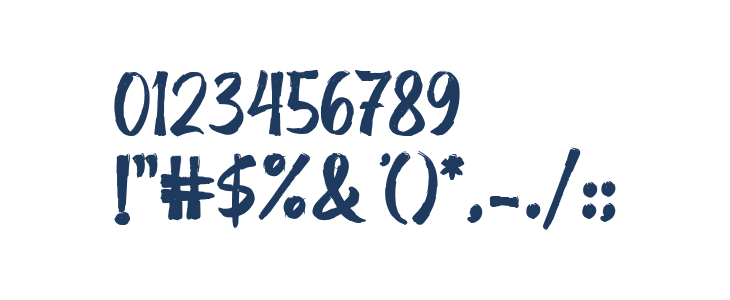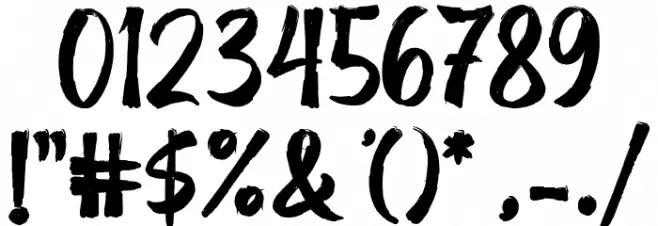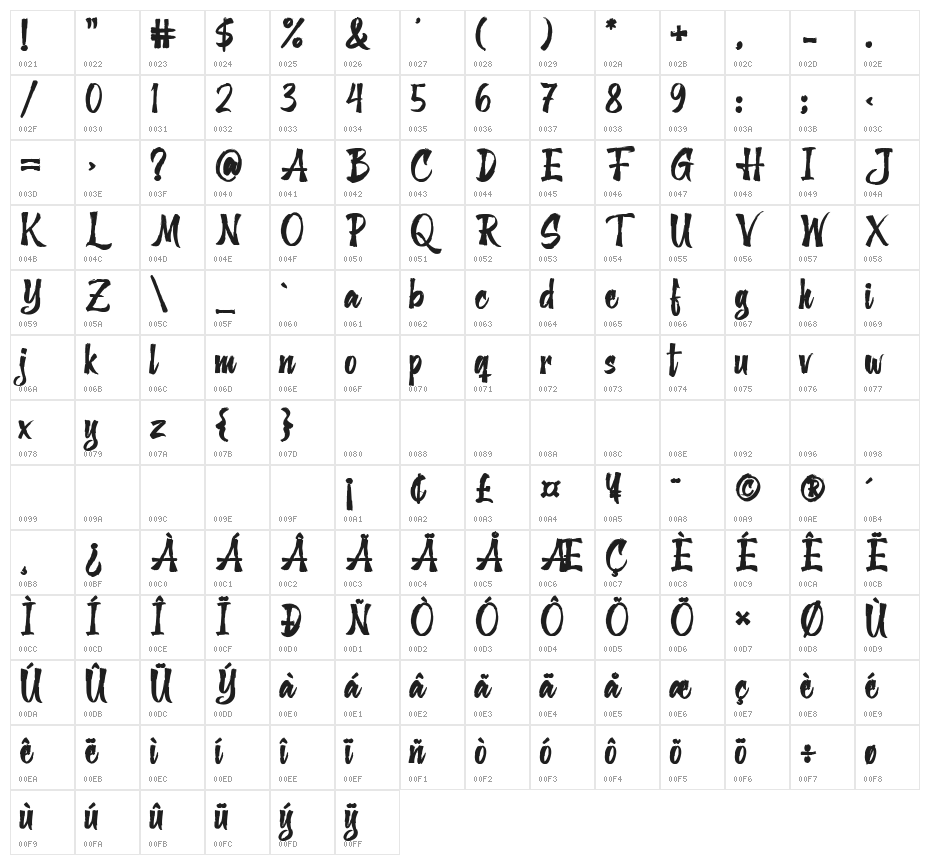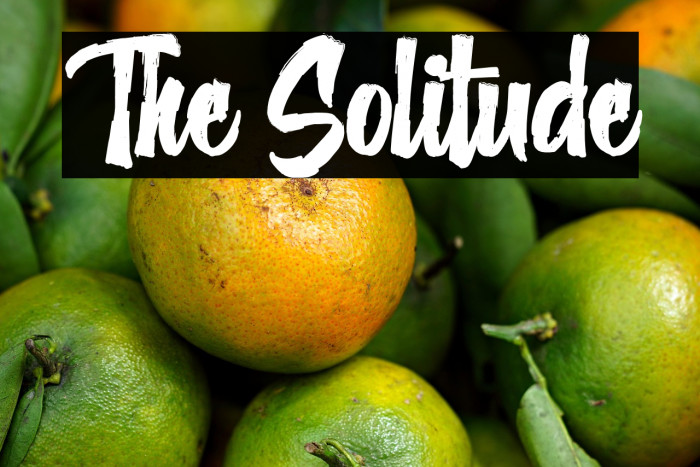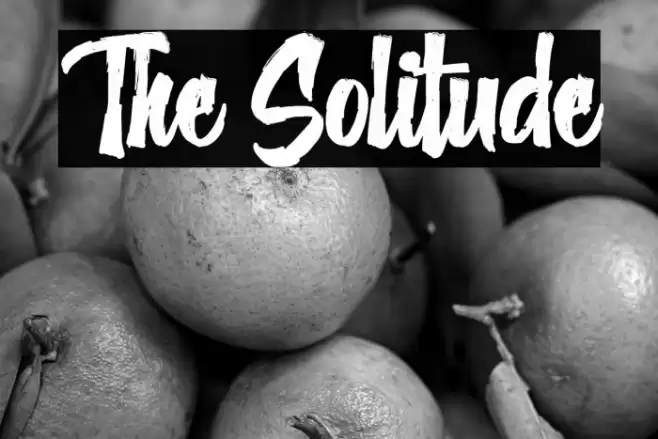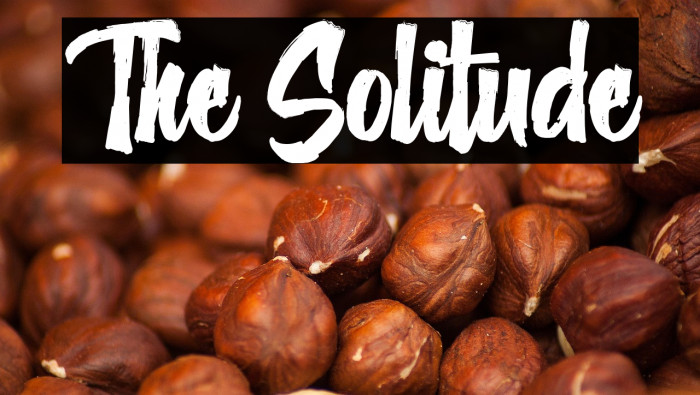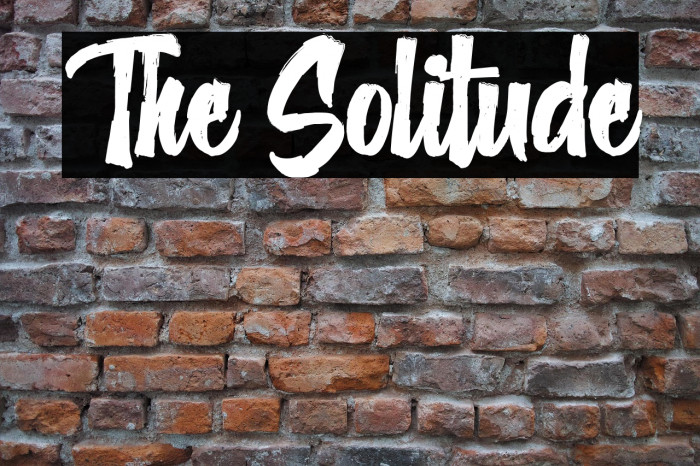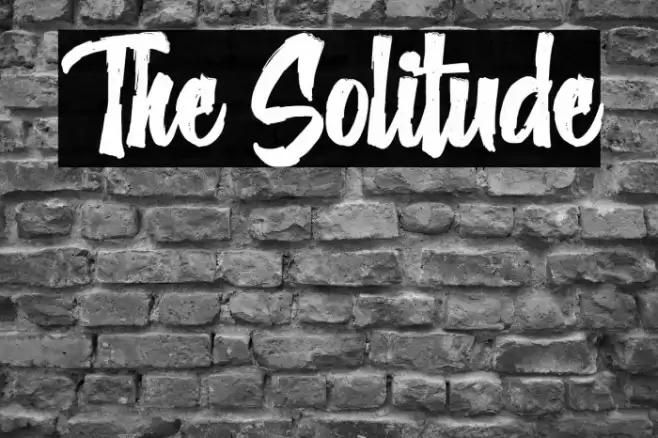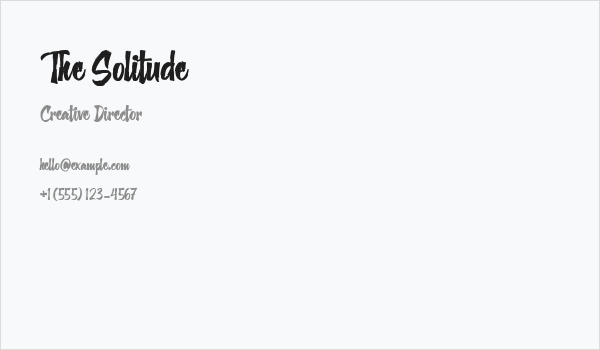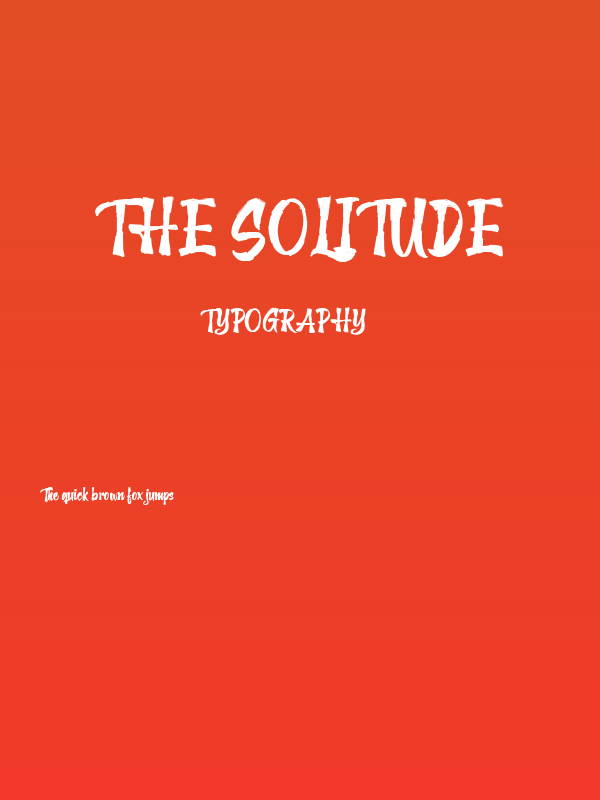
The Solitude Font
The Solitude Description
This font features a bold, expressive style with brush-like strokes that give it a dynamic and energetic appearance. The characters are slightly slanted, adding a sense of movement and fluidity. The uppercase letters are bold and prominent, while the lowercase letters maintain a consistent thickness, enhancing readability. The numerals are equally bold, matching the overall style of the alphabet. Special characters are creatively designed, maintaining the brush-like texture that characterizes the font. This font's unique style makes it stand out, perfect for projects that require a strong visual impact.
| Proposed Projects | Ideal for posters, branding, headlines, and creative designs that require a bold statement. |